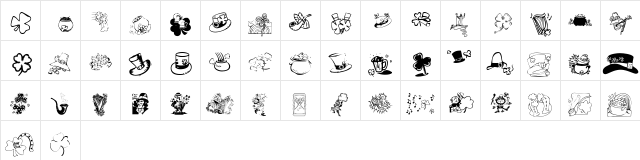
KR St Pat's 2003 Regular Font Preview
KR St Pat's 2003 Regular
KR St Pat's 2003 Regular Font Details
Design Context for KR St Pat's 2003 Typeface
KR St Pat's 2003 is a composed and adaptable typeface that performs quietly and consistently across a wide range of design contexts.